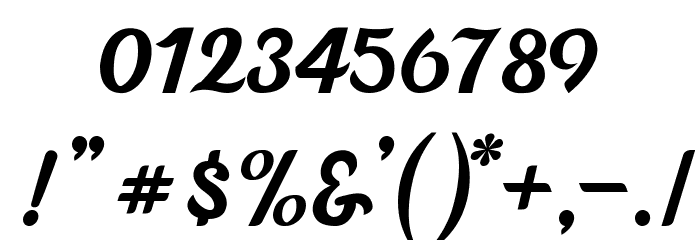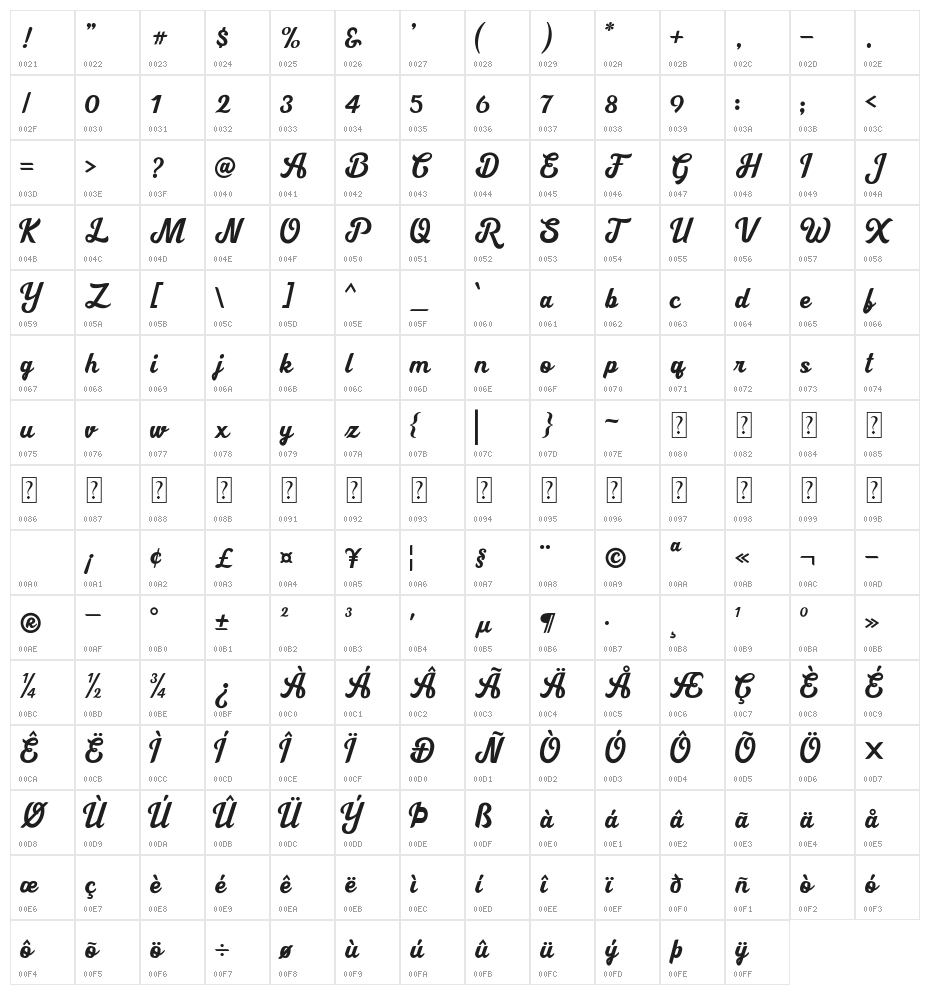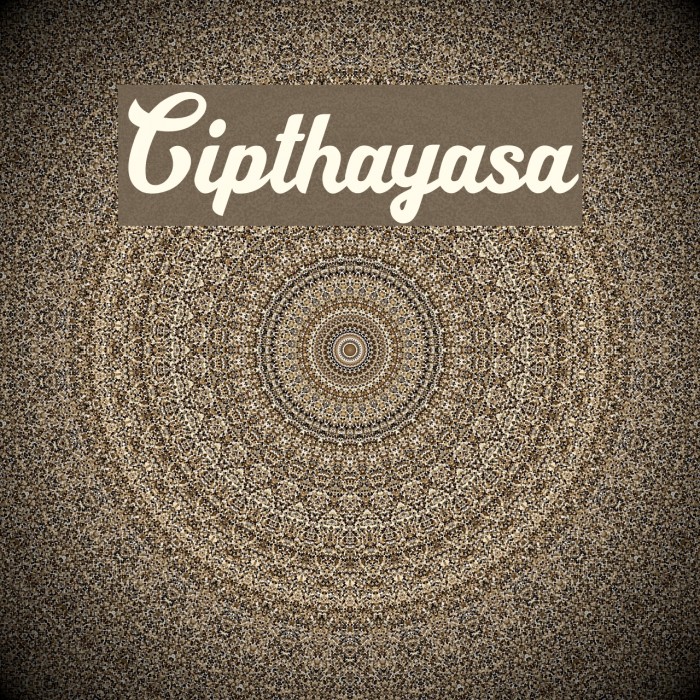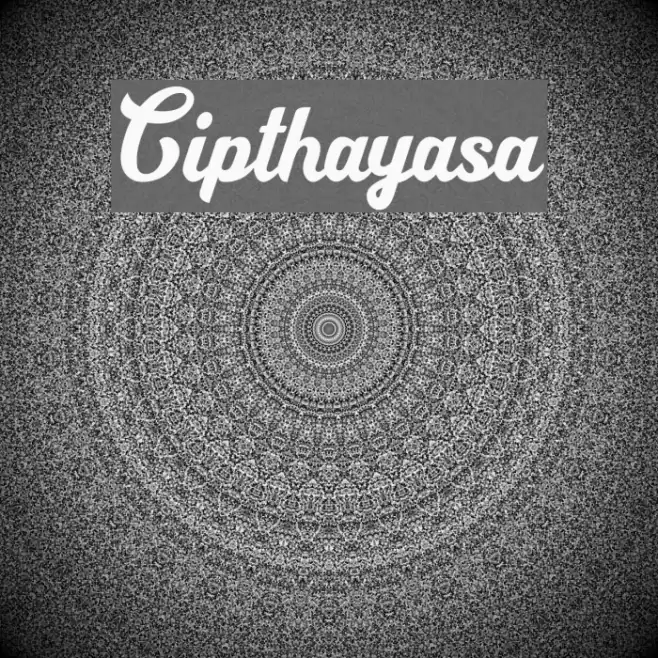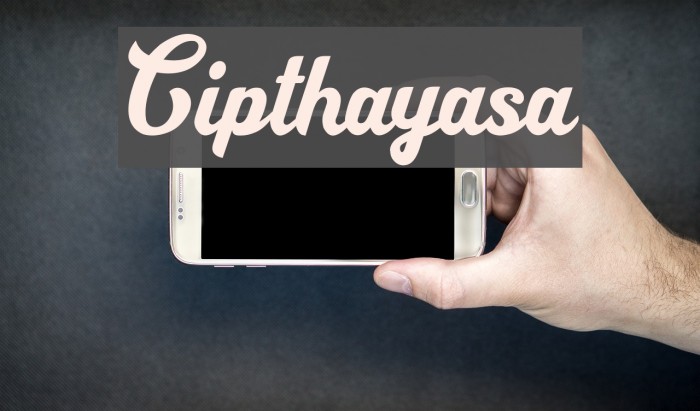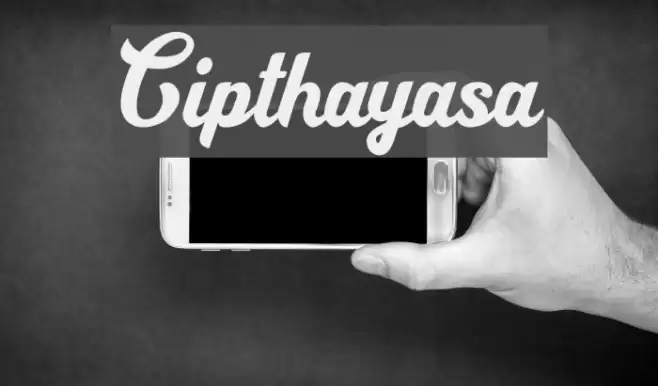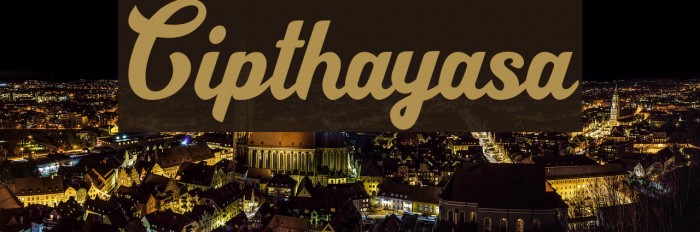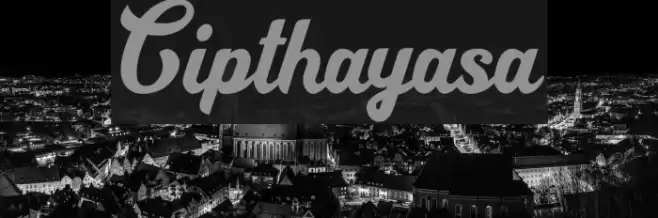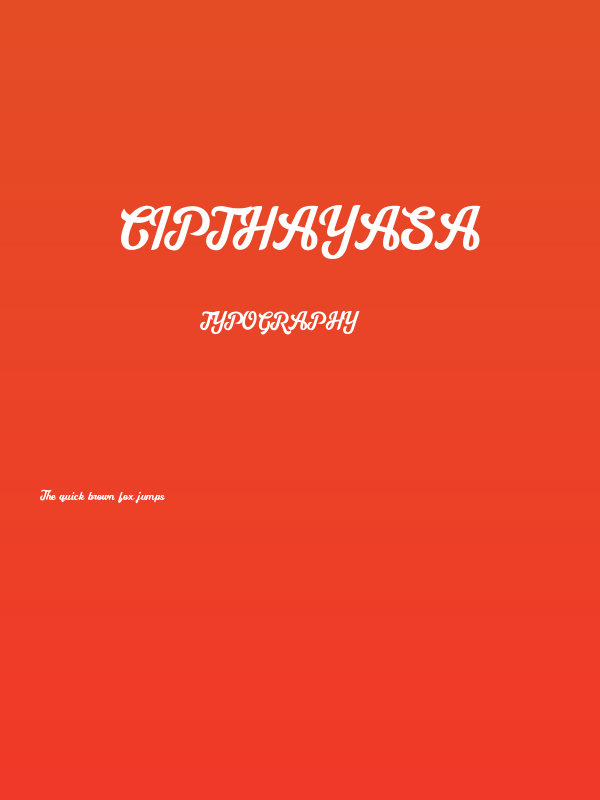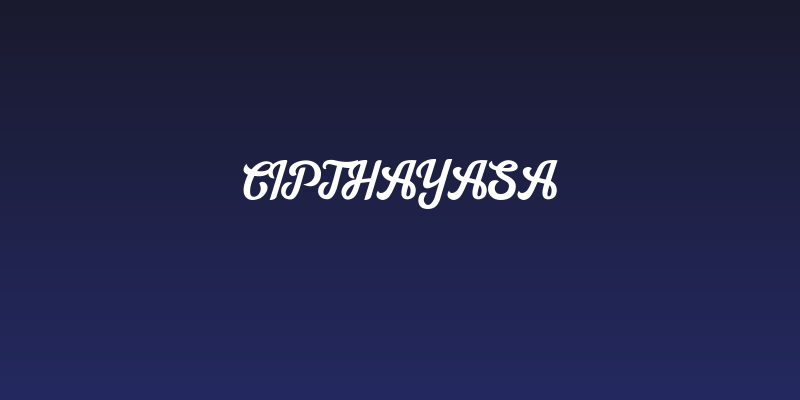
Cipthayasa Font
Cipthayasa Description
This font exudes a classic script style with a modern twist, characterized by its elegant, flowing curves and bold strokes. The uppercase letters are particularly ornate, featuring sweeping tails and loops that add a sense of movement and sophistication. The lowercase letters maintain a consistent flow, with smooth connections between characters that enhance readability. Numbers and special characters are designed to match the overall aesthetic, ensuring a cohesive look across all text elements. The font's bold weight and high contrast between thick and thin strokes make it stand out, ideal for making a statement.